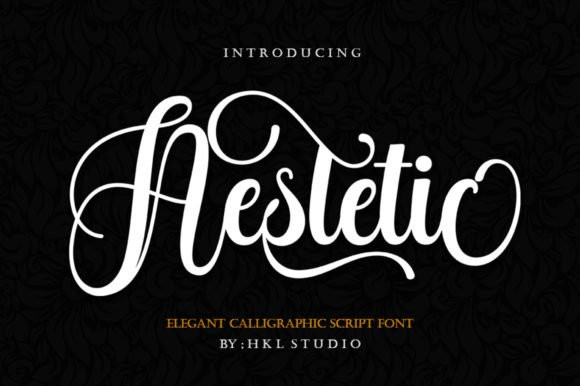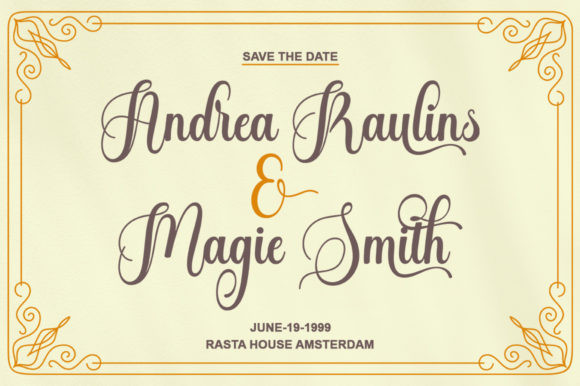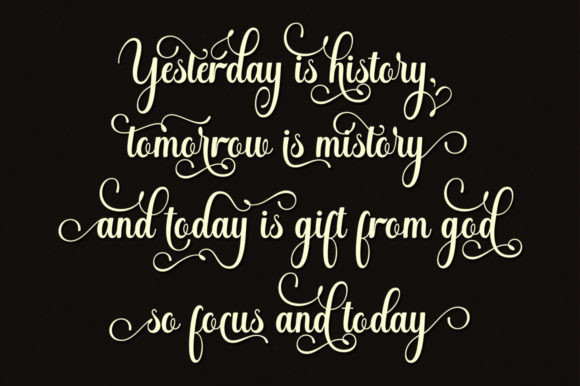
Aestetic Font
Aestetic FontAestetic is a dazzling and highly detailed script font. Whatever the topic, this font will be a wonderful asset to your font library, as it has the potential to enhance any creation.
This font is PUA encoded which means you can access all glyphs and swashes with ease!